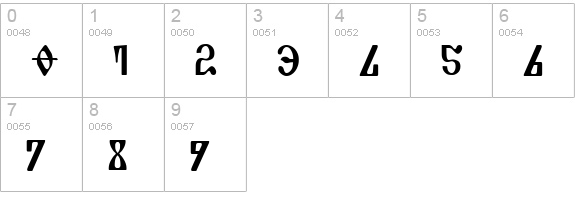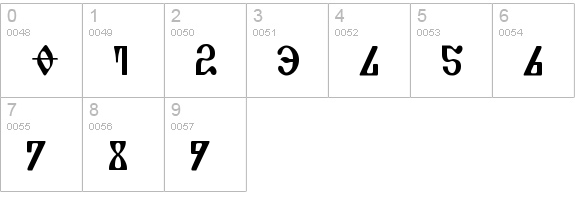
Piper Pie Condensed is a distinctive, condensed-width variant in the Piper typeface family \xE2\x80\x94 well suited to design and typography projects.
Piper Pie Condensed font is a charming and playful typeface that exudes a sense of whimsy and creativity. With its condensed design and rounded edges, this font is perfect for adding a touch of fun to any project. Whether you're creating greeting cards, posters, or social media graphics, Piper Pie Condensed will bring a lighthearted feel to your designs. The best part? Piper Pie Condensed font is available for free download at FontsMarket.com. This means you can easily add this delightful font to your collection without any cost. So go ahead and unleash your creativity with Piper Pie Condensed font - the perfect choice for projects that need a bit of personality and flair.